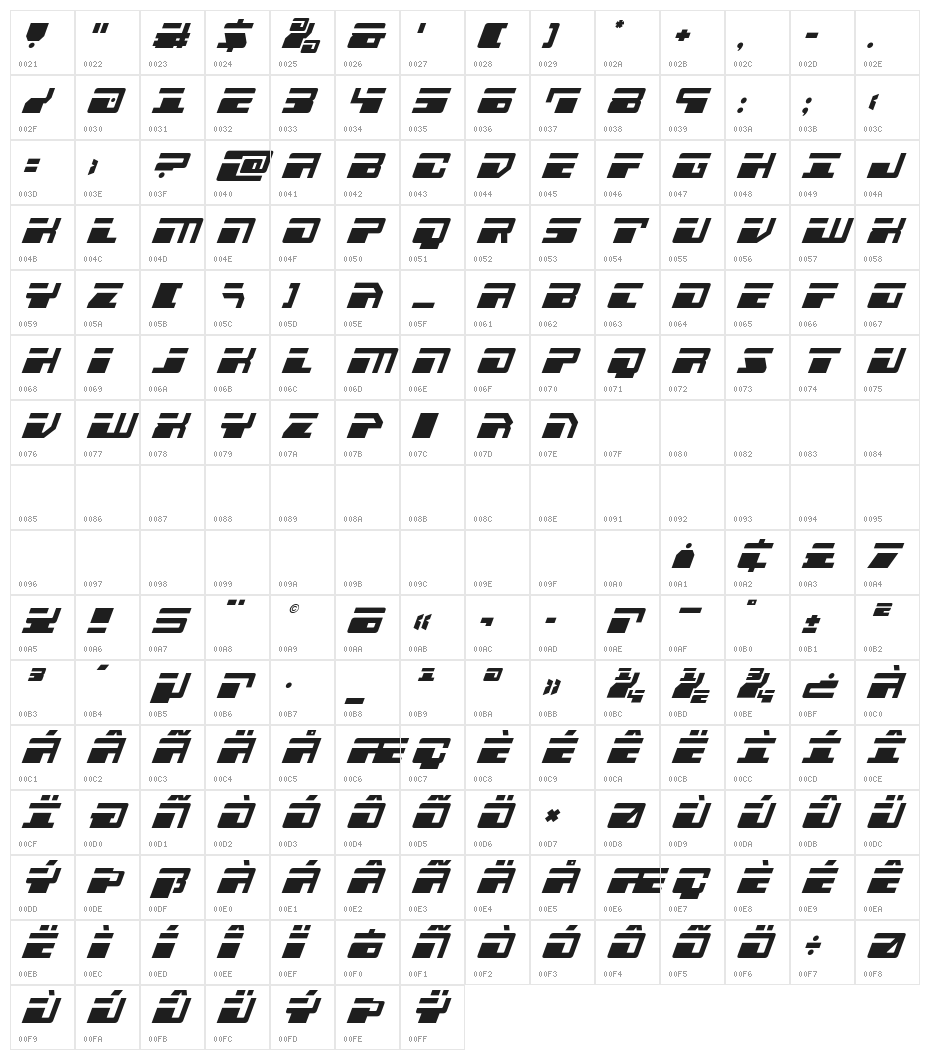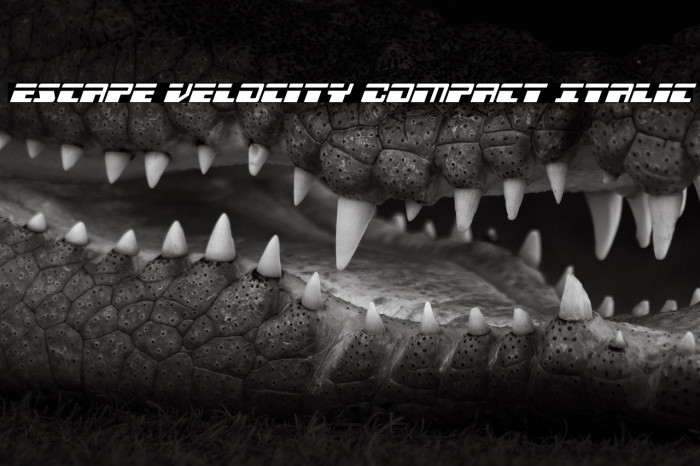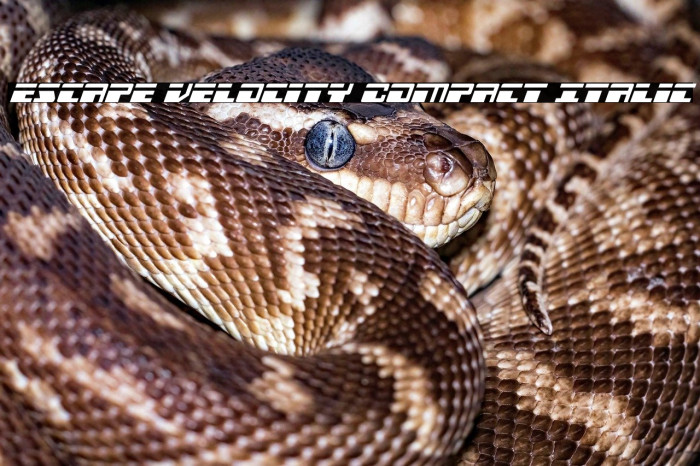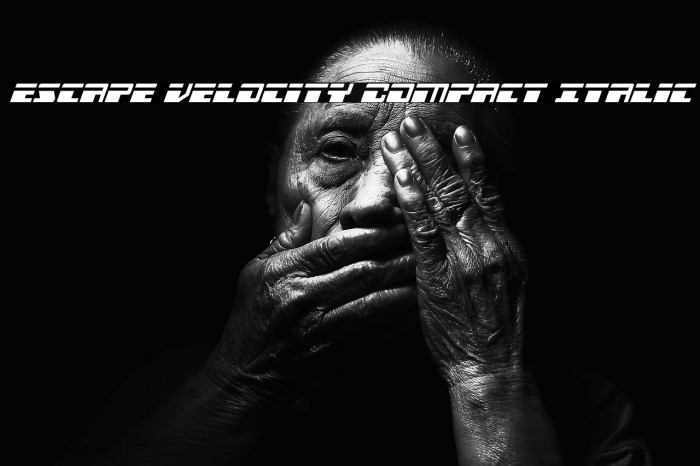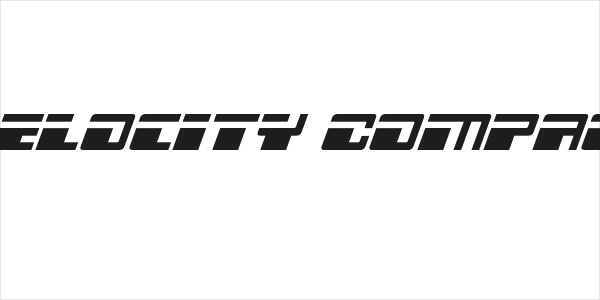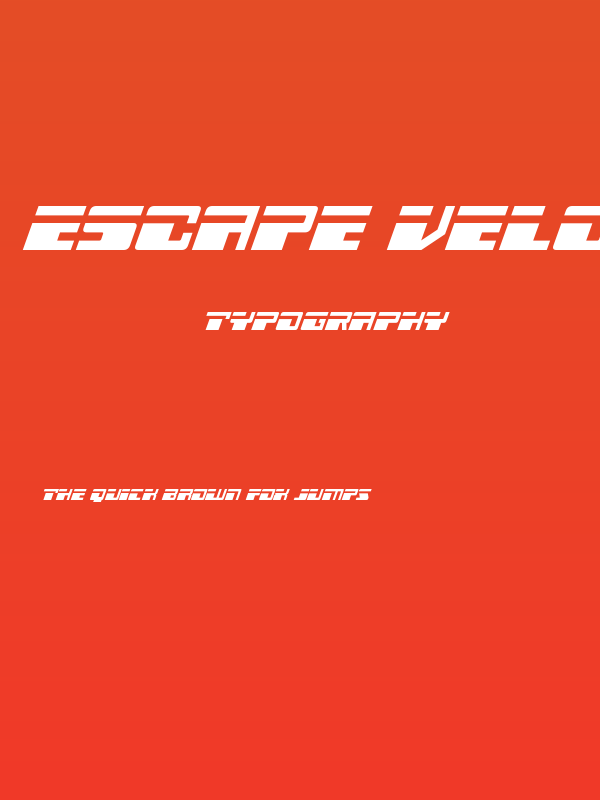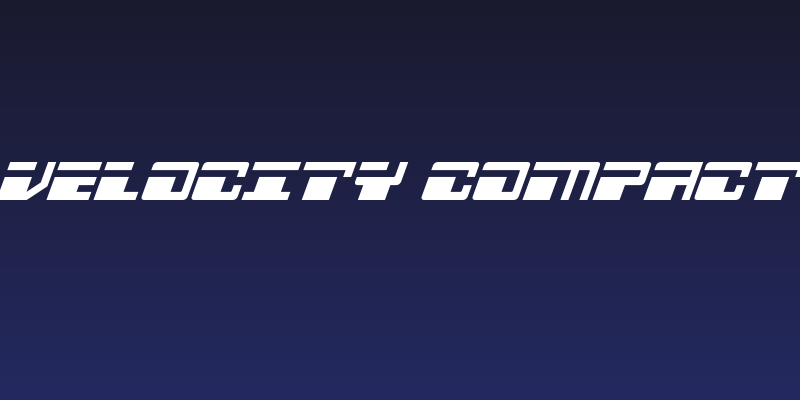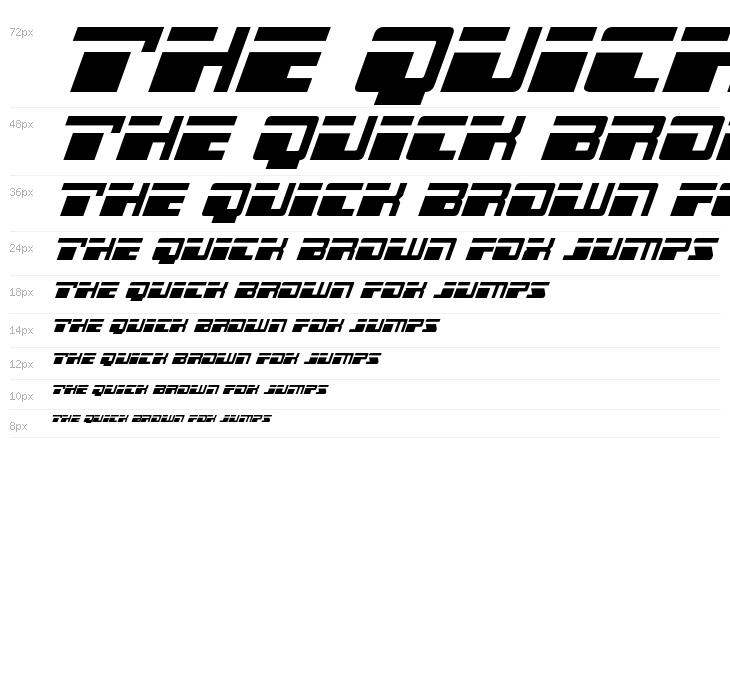
Escape Velocity Compact Italic Font
Escape Velocity Compact Italic Description
This font exhibits a futuristic and dynamic style, characterized by its bold and italicized letterforms. The design features sharp angles and a compact structure, giving it a sense of speed and movement. The uppercase and lowercase letters maintain a consistent geometric form, while the numbers and special characters align seamlessly with the overall aesthetic. The font's unique style makes it stand out, with a strong emphasis on horizontal lines and a slightly condensed appearance. Its modern and edgy look is perfect for projects that require a bold statement.
| Proposed Projects | Ideal for sci-fi themed designs, video game titles, technology branding, and futuristic posters. |